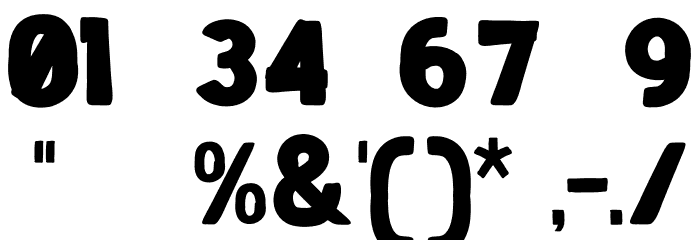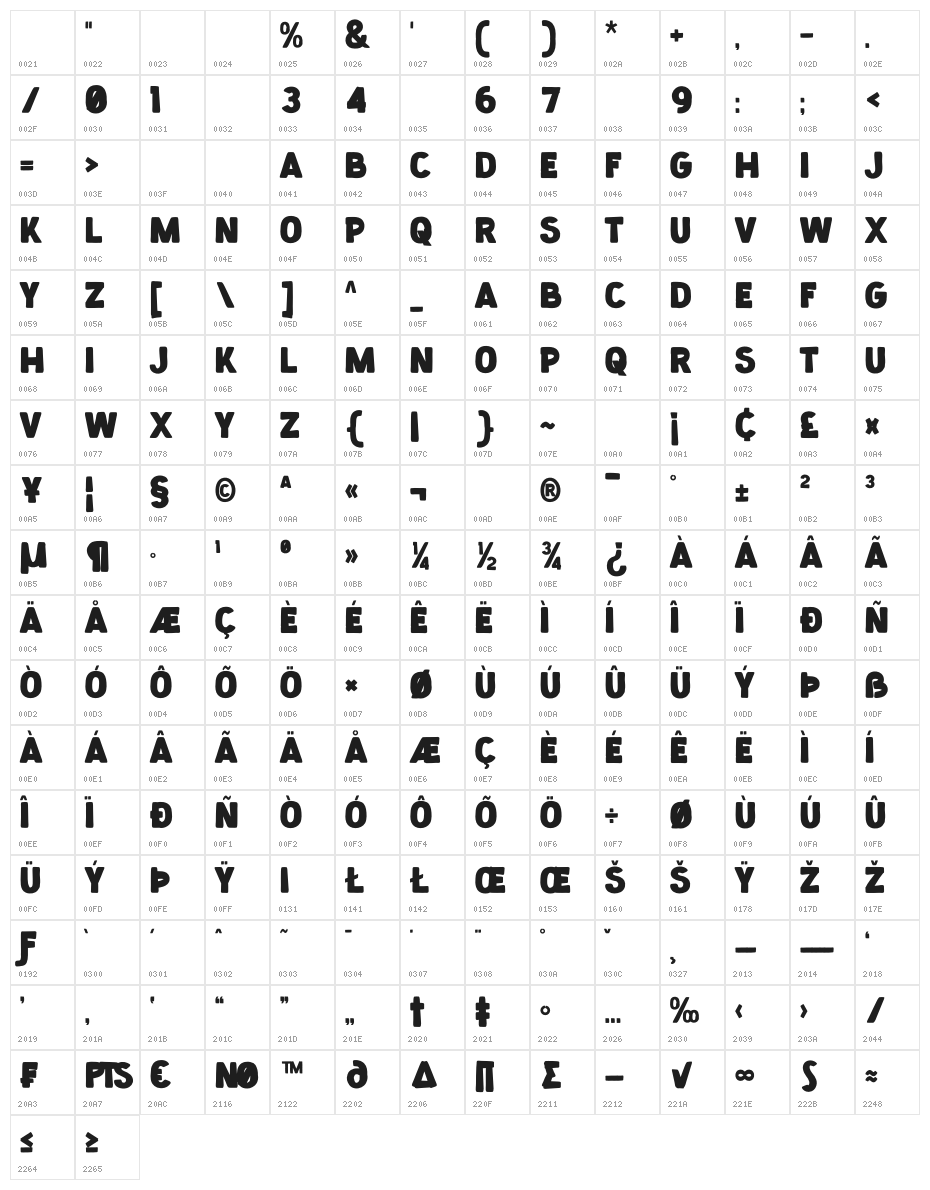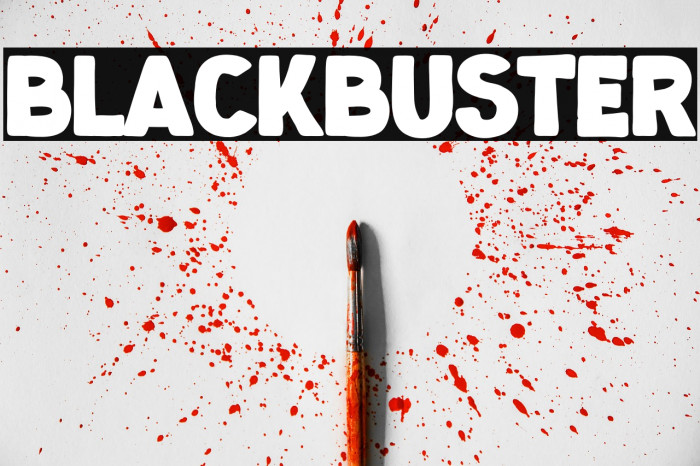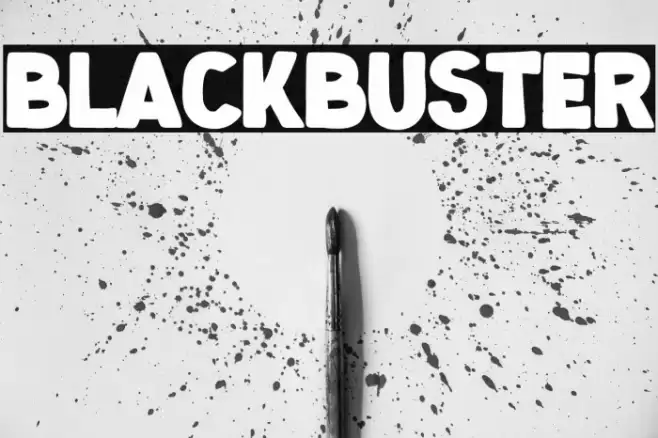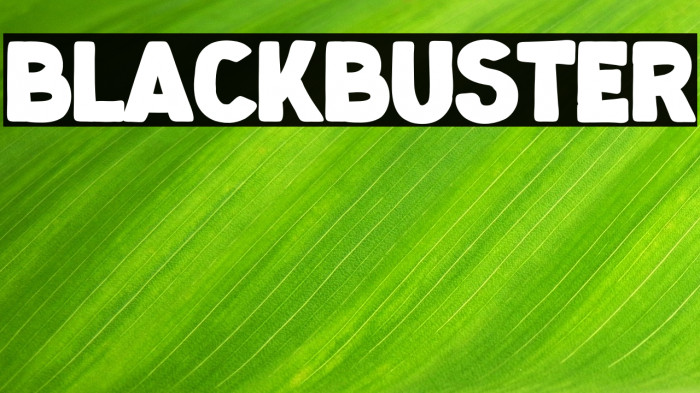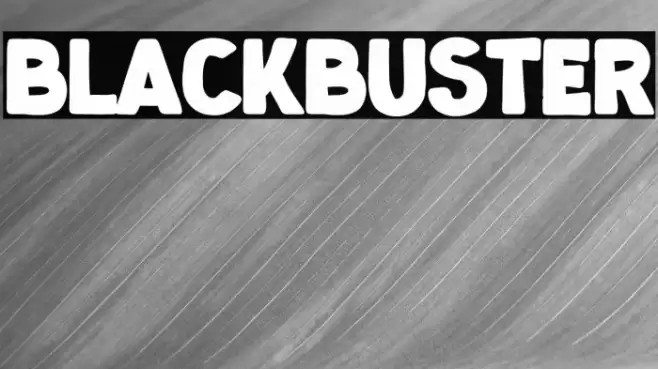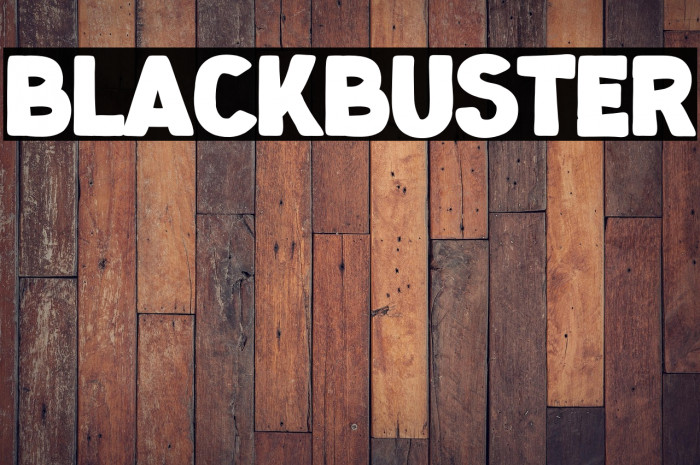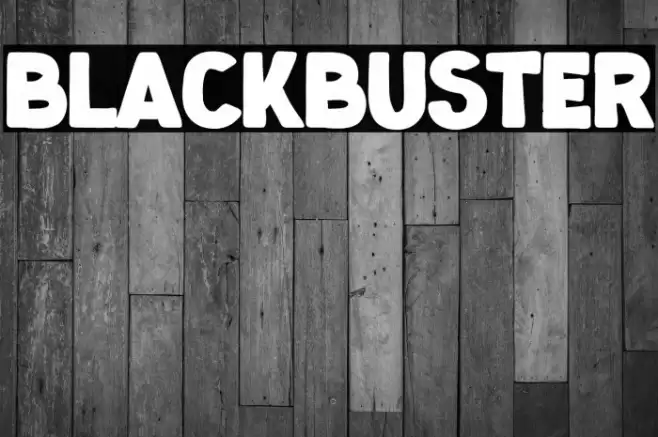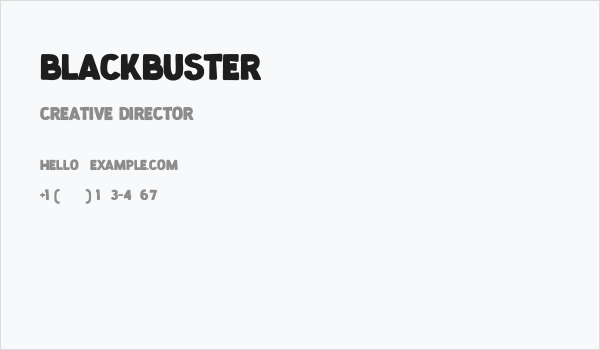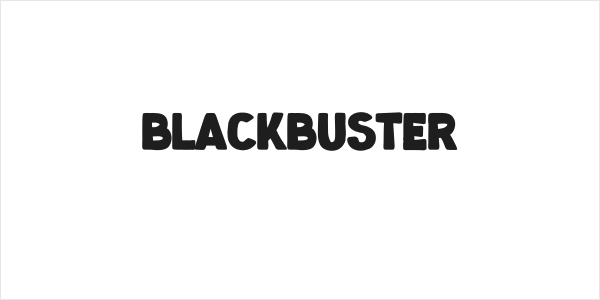
blackbuster Font
| Stil general | Playful, Bold |
| Proiecte propuse | Ideal for children's books, playful branding, posters, and headlines that require a strong yet friendly impact. |